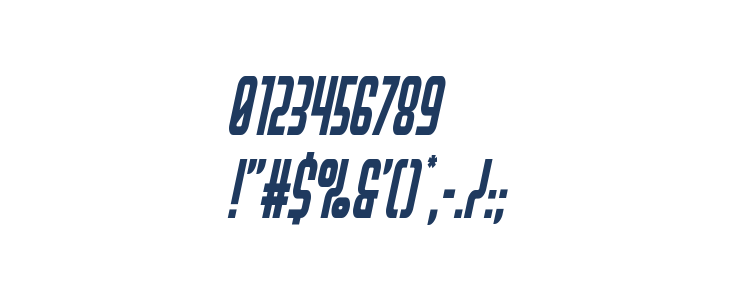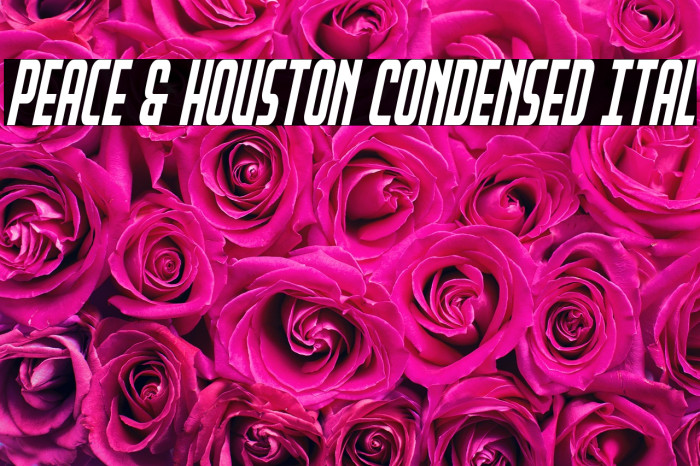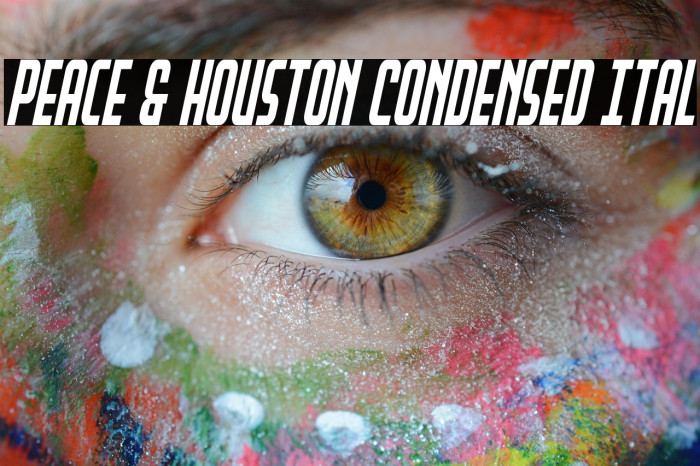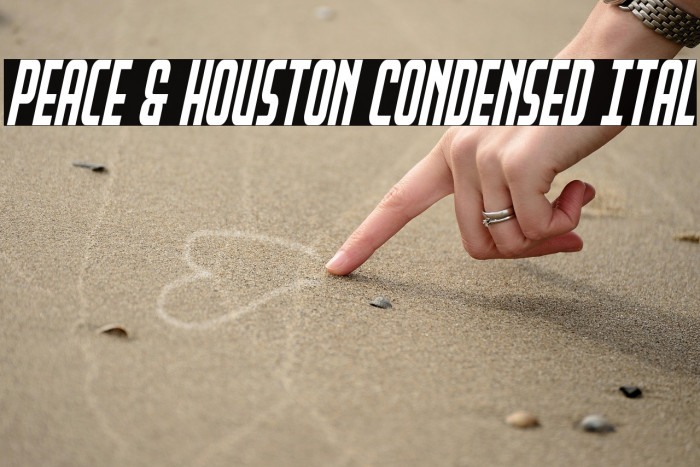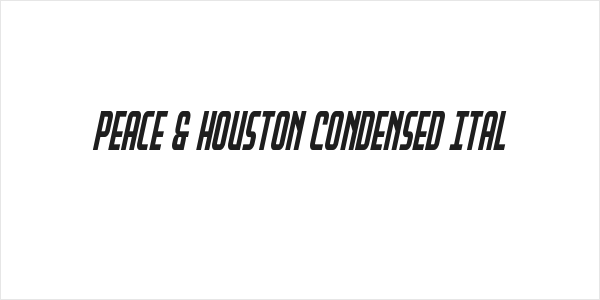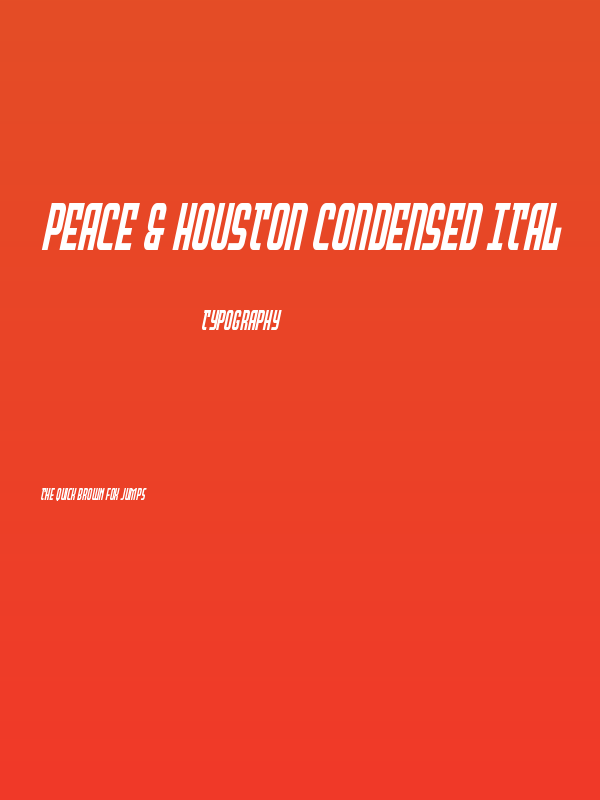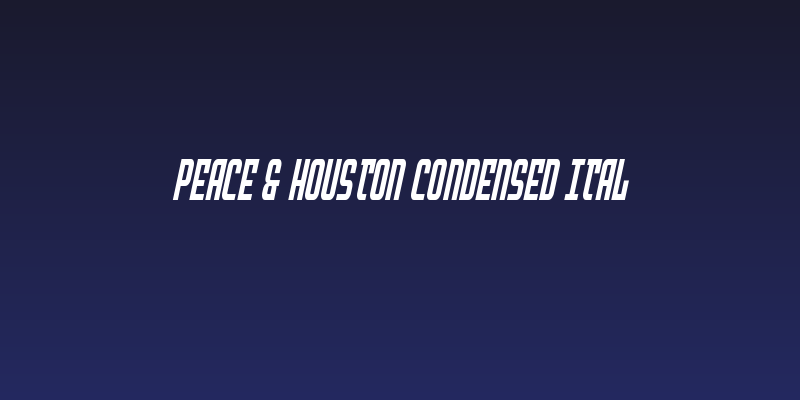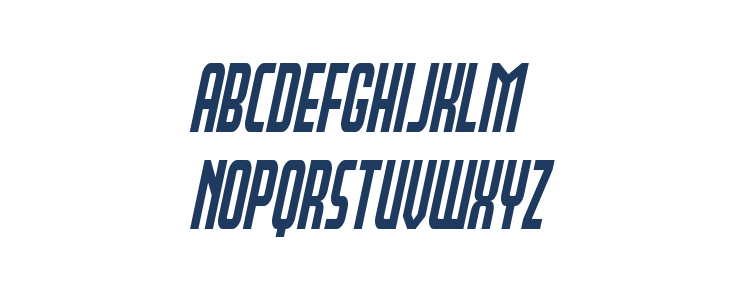
Peace & Houston Condensed Ital Font
Peace & Houston Condensed Ital Description
This font features a bold and dynamic appearance with a condensed structure, giving it a strong and impactful presence. The italicized style adds a sense of motion and energy, making it ideal for attention-grabbing headlines or titles. The characters are tightly spaced, enhancing the compact and streamlined look. The high contrast between thick and thin strokes further emphasizes its boldness, while the angular design elements contribute to a modern and edgy aesthetic. This typeface is well-suited for projects that require a contemporary and assertive visual identity.
| Proposed Projects | Ideal for sports branding, dynamic posters, modern advertising, and impactful headlines. |